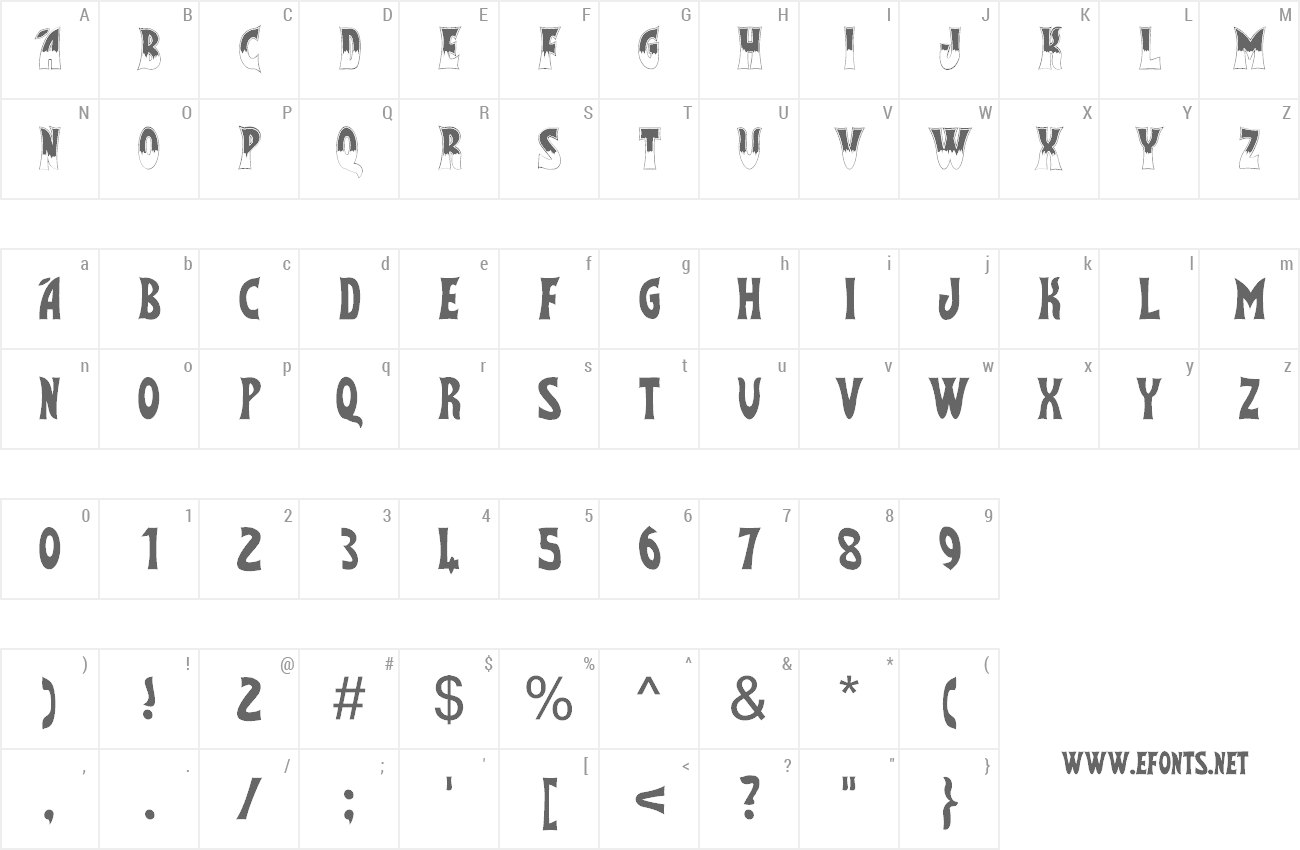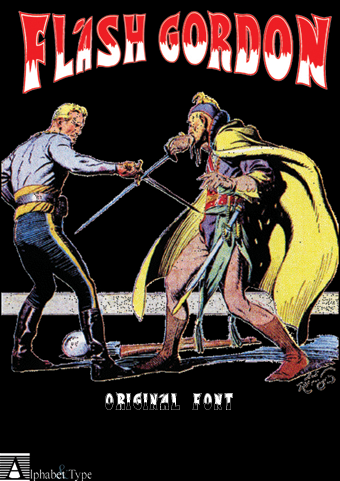
| Font name: | Flash Gordon |
| Author: | Alphabet & Type |
| Note by Alphabet & Type | |
| Flash Gordon font: directly from the Best movie by Mike Hodges, with Max Von Sydow, the original font for all lovers. |